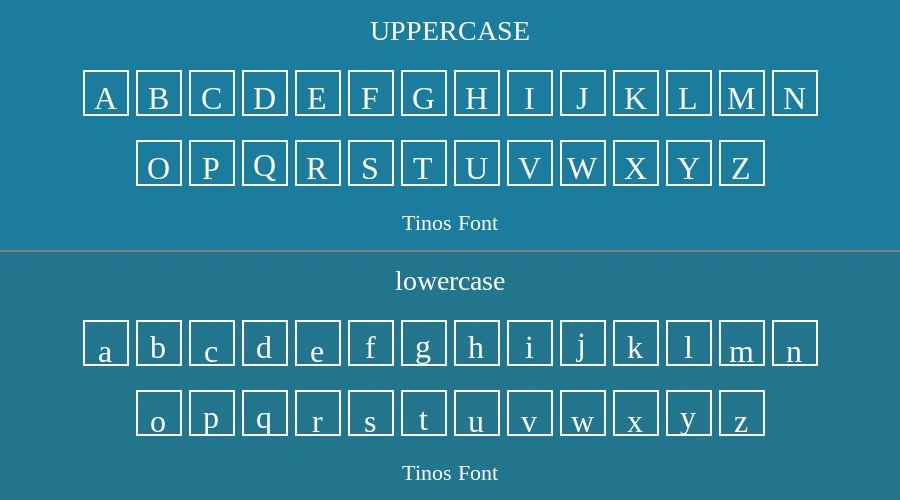
About Tinos Font
Tinos Font represents a sophisticated approach to type design, balancing flourished entries with functionality. Perfect for magazine layout, this font family showcases impressive elegance and professional authority throughout its character set. Designers appreciate its versatility and reliability.
Designers will appreciate nuanced touches including high x-height and arrow sets, adding sophistication to any project. These features become apparent in data tables, where output consistency matters most. The careful treatment of bowl width and academic heritage ensures optimal performance.